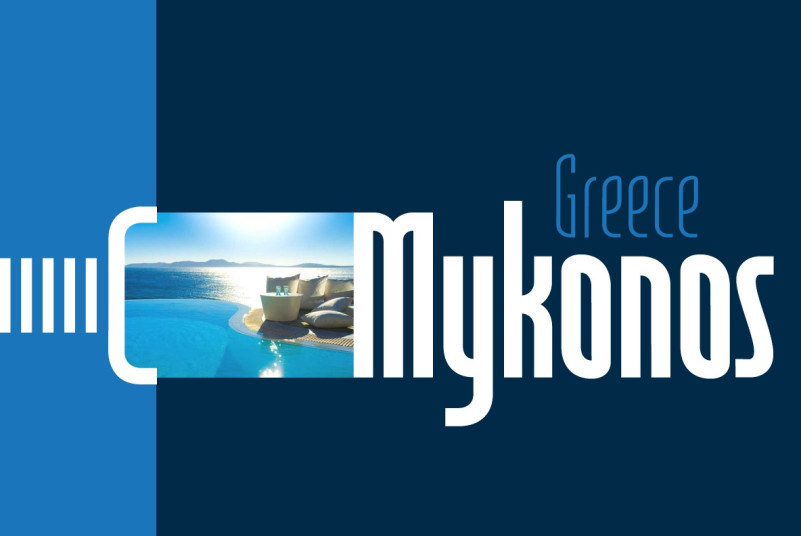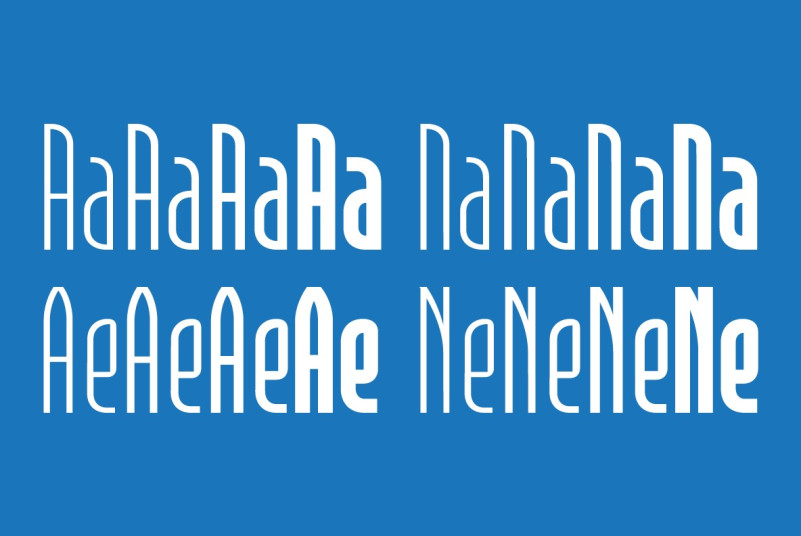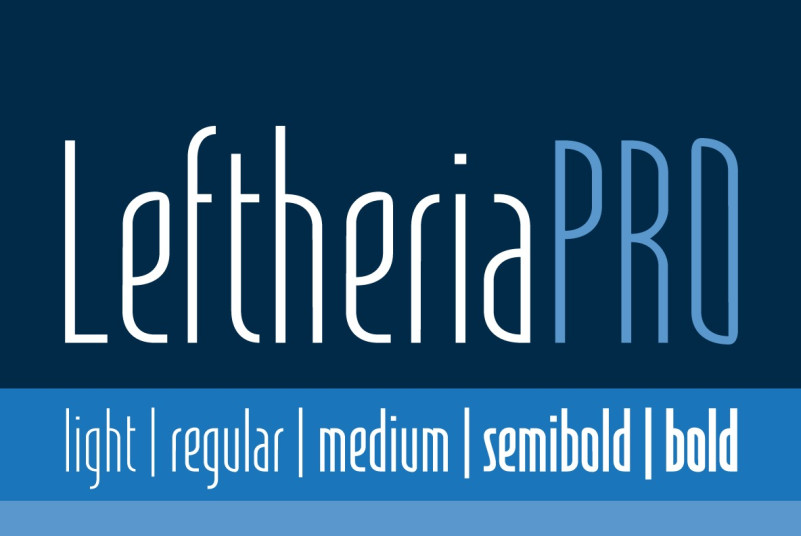
LeftheriaPRO Font
Leftheria has its structure projected from the capitals of the Greek columns of Ionian order, it is a typography condensed with vertical emphasis composed by 05 weights (light, regular, medium, semibold, bold) including ligatures, alternates, smal caps, old styles figures, fractions, superiors, inferiors.